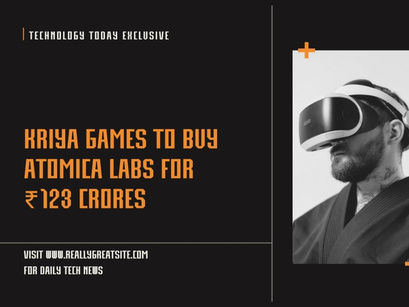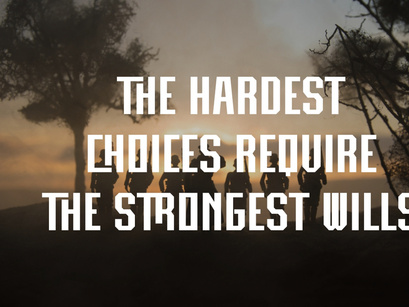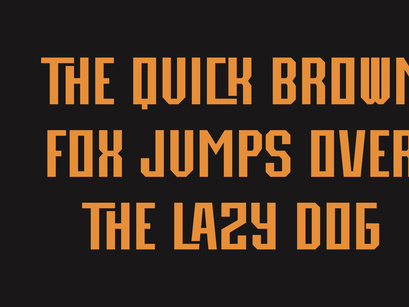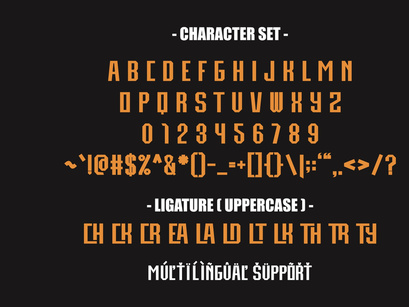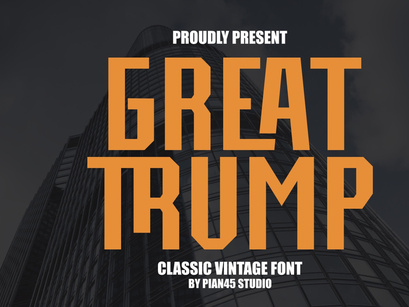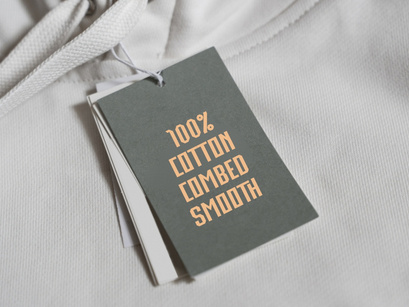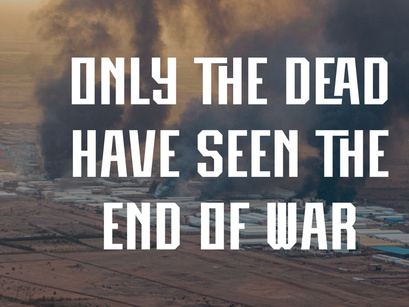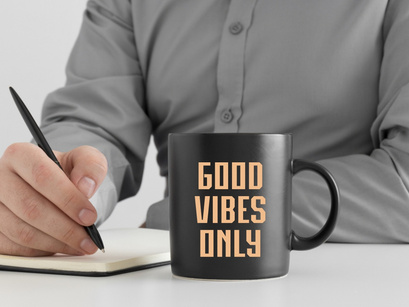
Great Trump is a powerful and authoritative Classic Vintage Font with a distinct, blocky, and geometric presence. Its ultra-bold, all-caps structure with angled corners is perfect for high-impact political campaigns, monumental signage, sports branding, and bold headlines. This typeface delivers a confident, strong, and instantly recognizable vintage aesthetic, making it ideal for projects that require a feeling of authority, classic Americana, or a powerful, retro-inspired display.